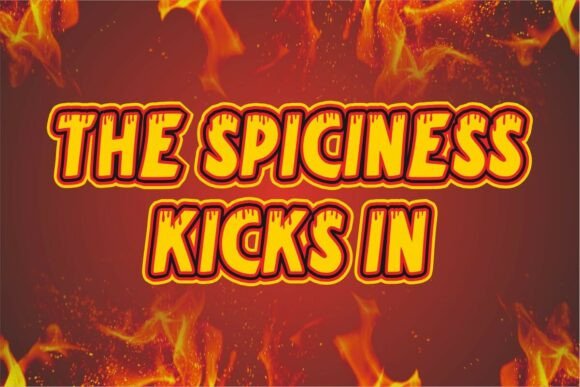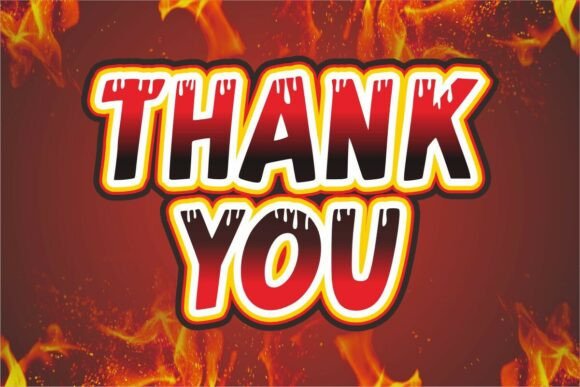
Unleash the Fires of Creativity with Fire Creative Font
I’ll never forget the design project that pushed me to the edge. I was working on a poster for a music festival, and my client wanted a bold, attention-grabbing title that would reflect the energetic vibe of the event. As I scrolled through font after font, nothing seemed quite right. That was until I stumbled upon Fire Creative. This stunningly unique font ignited a spark within me, and I knew I had found the perfect match. In this article, I’ll share my experience with Fire Creative, its features, and how to make the most of this blazing hot display font.
A Personal Review of Fire Creative
- ✨ Unique and bold design: Fire Creative’s thick, explosive letterforms with fiery drips and vivid outline make it perfect for grabbing attention.
- ✅ High-contrast style: The dynamic shapes and flame-inspired accents give it an intense and animated feel, ideal for conveying heat, excitement, or urgency.
- 🔥 Perfect for various projects: From event posters and action-themed titles to gaming graphics, YouTube thumbnails, or brand logos, Fire Creative is versatile and impactful.
While Fire Creative is an amazing font, there are a few things to keep in mind:
- 🤔 Legibility at small sizes: Due to its bold and decorative nature, Fire Creative may not be the best choice for body text or small font sizes.
- ⚠️ Glyph compatibility: Some platforms or software may not support the full range of glyphs and OpenType features, so it’s essential to test the font before finalizing your design.
The Story Behind Fire Creative
Fire Creative was born from the passion of its designer, who wanted to create a font that would evoke the energy and excitement of a raging fire. Inspired by the dynamic movements of flames, the designer carefully crafted each letterform to convey a sense of boldness and intensity. The result is a font that’s sure to ignite your designs and leave a lasting impression.
| What type of projects is Fire Creative best suited for? | Fire Creative is perfect for projects that require a bold, attention-grabbing font, such as event posters, action-themed titles, gaming graphics, YouTube thumbnails, or brand logos. |